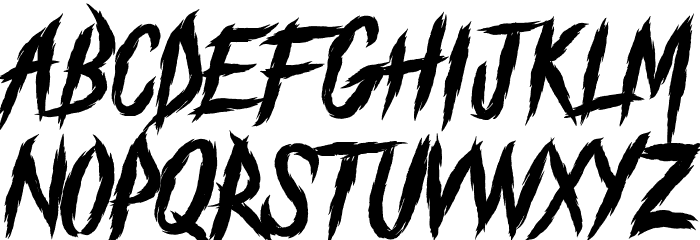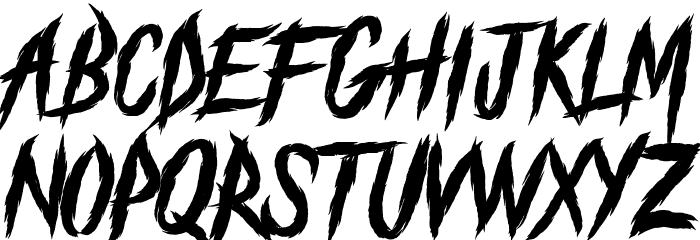
The Black Festival - DEMO Font
This font features a bold and aggressive style, characterized by sharp, jagged edges and a dynamic, energetic flow. The letters are designed with a brush-like texture, giving them a raw and edgy appearance. Each character appears to be hand-drawn, with varying stroke thickness that adds to the chaotic yet artistic feel. The uppercase letters dominate the design, with a consistent height and width that maintains readability despite the unconventional style. This font exudes a sense of rebellion and intensity, making it ideal for projects that require a strong visual impact.
A bold, jagged, brush-style font with an aggressive and energetic appearance.
- Proposed Projects: Ideal for music festival posters, edgy branding, album covers, and streetwear designs.
- Overall Style: Modern, Edgy